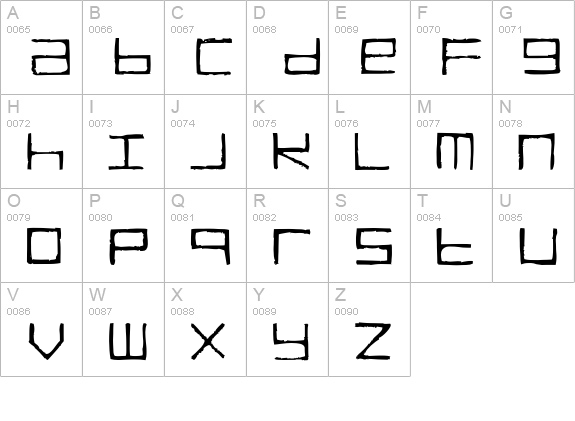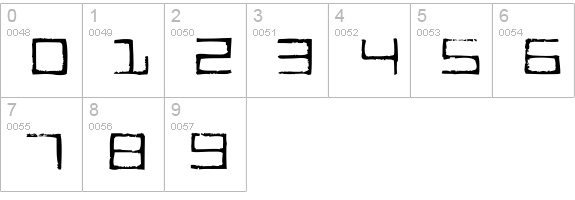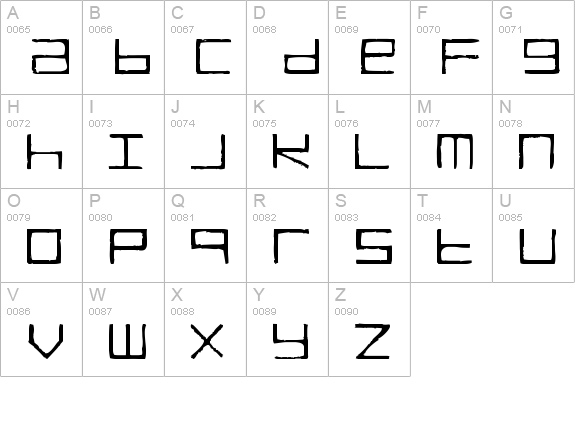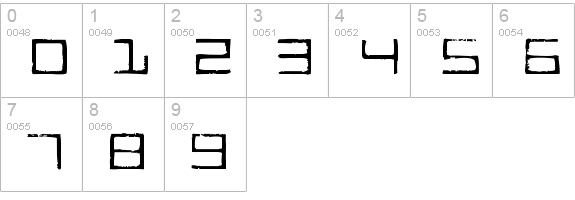
TRUCKTransmission Font Details
Introducing TRUCKTransmission, a bold and powerful font that exudes strength and reliability. This versatile typeface is perfect for capturing attention and making a statement in any design project. With its strong, angular letterforms and robust character, TRUCKTransmission commands attention and adds a touch of ruggedness to your work. TRUCKTransmission is not just your ordinary font; it is a font that embodies the spirit of adventure and the power of the open road. Whether you're creating a logo for a trucking company, designing a poster for a rock concert, or crafting a bold headline for a magazine spread, this font will make your words stand out and demand attention. What makes TRUCKTransmission even more impressive is that it is freely available to download at FontsMarket.com. That's right, you can unleash the strength and impact of this font without breaking the bank. Whether you're a professional designer or a passionate hobbyist, TRUCKTransmission is the perfect addition to your font collection. With its wide range of characters and extensive language support, TRUCKTransmission is ready to tackle any design project you throw its way. From logos and branding to headlines and display text, this font will enhance your creations and leave a lasting impression. So why settle for ordinary when you can have extraordinary? Download TRUCKTransmission today at FontsMarket.com and elevate your designs to new heights. Unleash its power, make a bold statement, and leave a lasting impression with this remarkable font. Don't miss out on the opportunity to add TRUCKTransmission to your font arsenal - it's time to make your designs roar!